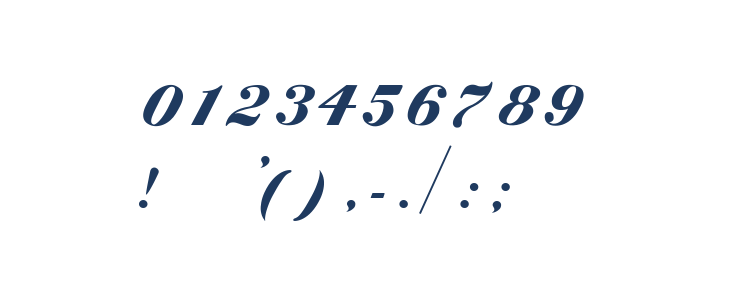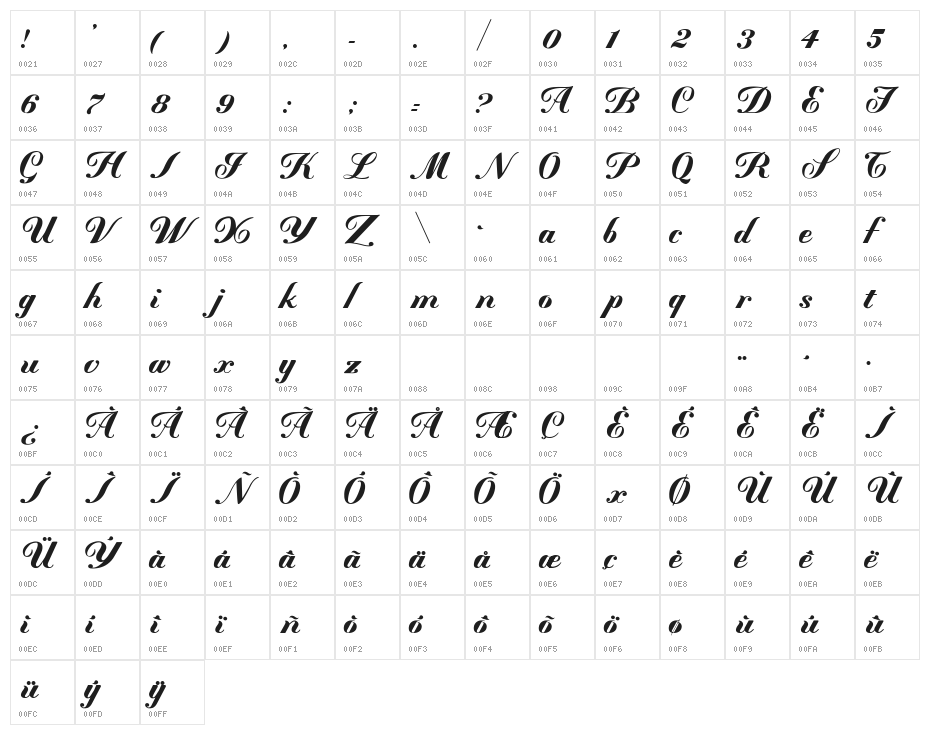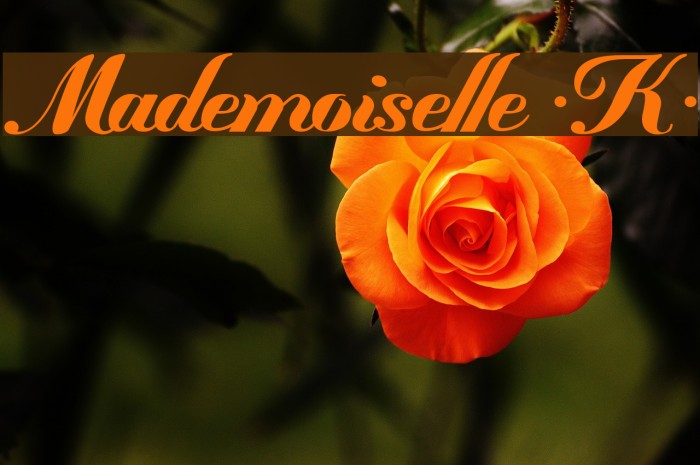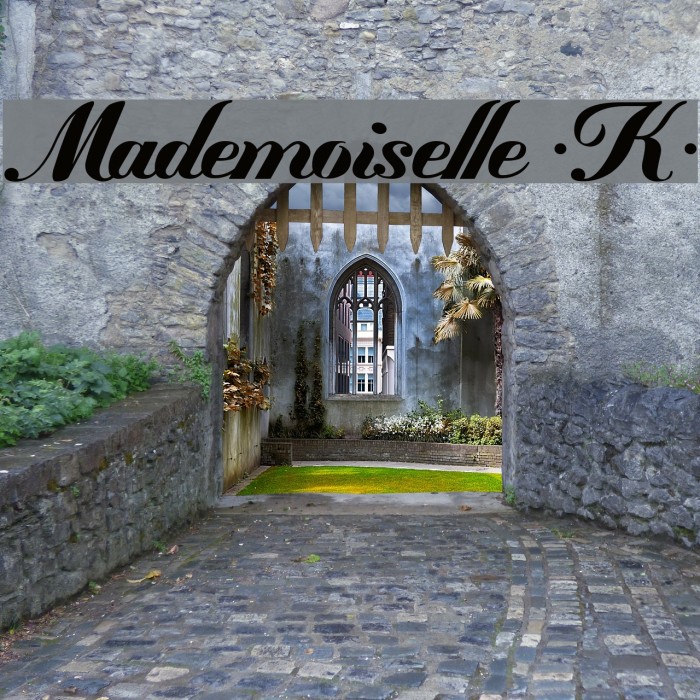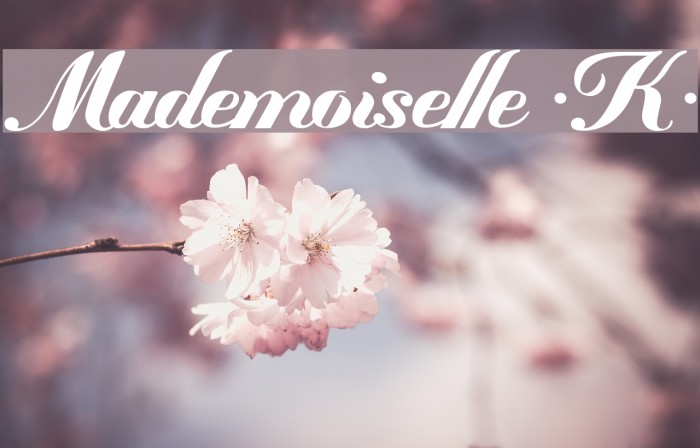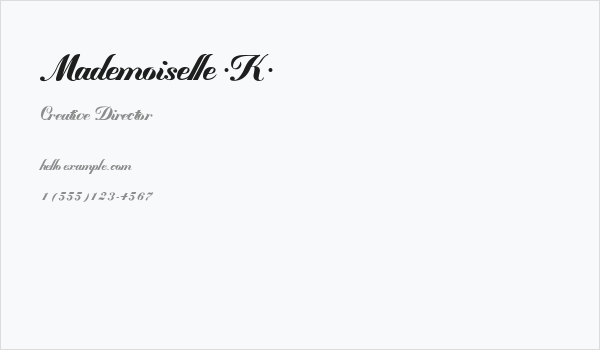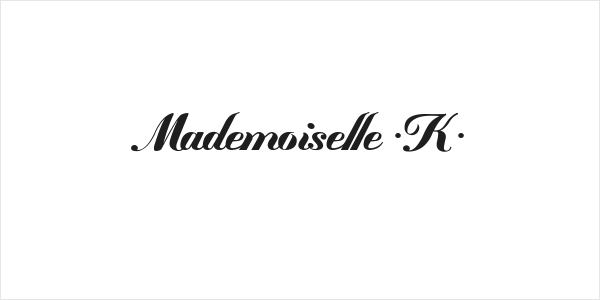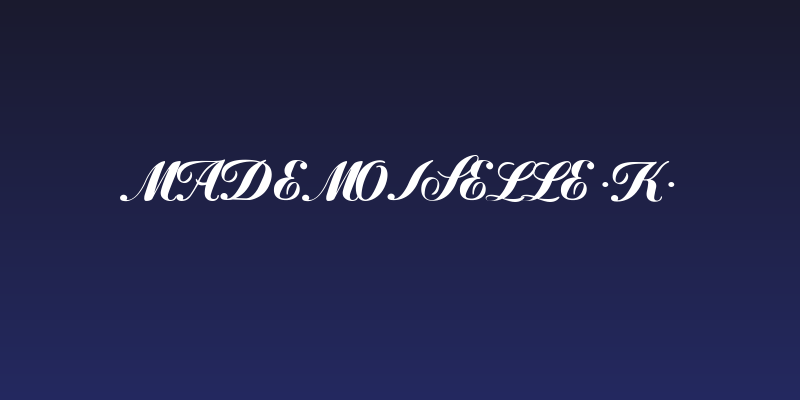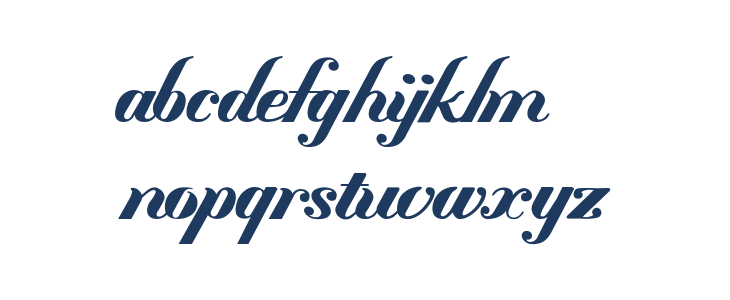
Mademoiselle ·K· Font
Mademoiselle ·K· Description
This elegant script font features a sophisticated and flowing design, characterized by its smooth, cursive strokes and graceful curves. The uppercase letters exhibit a classic calligraphic style with decorative flourishes, while the lowercase letters maintain a consistent, fluid motion. The numerals are stylishly integrated, matching the overall aesthetic with their sweeping lines. Special characters are thoughtfully designed to complement the font's refined appearance. This font exudes a sense of luxury and timeless elegance, making it ideal for projects that require a touch of sophistication.
| Proposed Projects | Ideal for wedding invitations, luxury branding, elegant packaging, and high-end editorial design. |